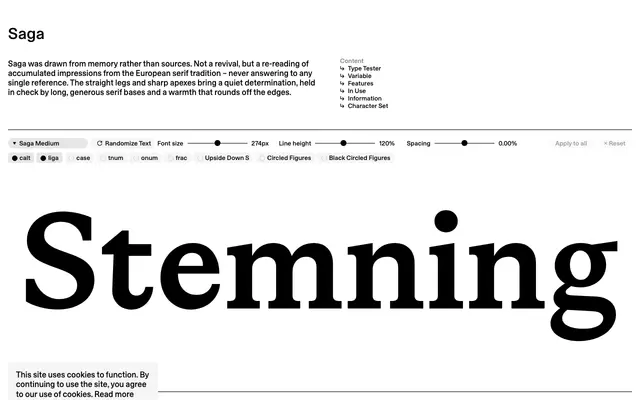
A serif drawn from accumulated impressions of the European tradition rather than any single historical source, with sharp apexes offset by long, warm serif bases.
Six weights from Light to Bold, each with an italic, compose a family built on straight legs and sharp apexes that give the text a quiet precision. Long, generous serif bases temper the sharpness and keep the texture warm at reading sizes. OpenType features include contextual alternates, ligatures, tabular and oldstyle figures, fractions, and playful additions such as circled figures and an upside-down S.
Saga draws on the European serif tradition with straight legs, sharp apexes and long generously proportioned serif bases, placing it in the humanist serif camp rather than a strict transitional or old-style classification.